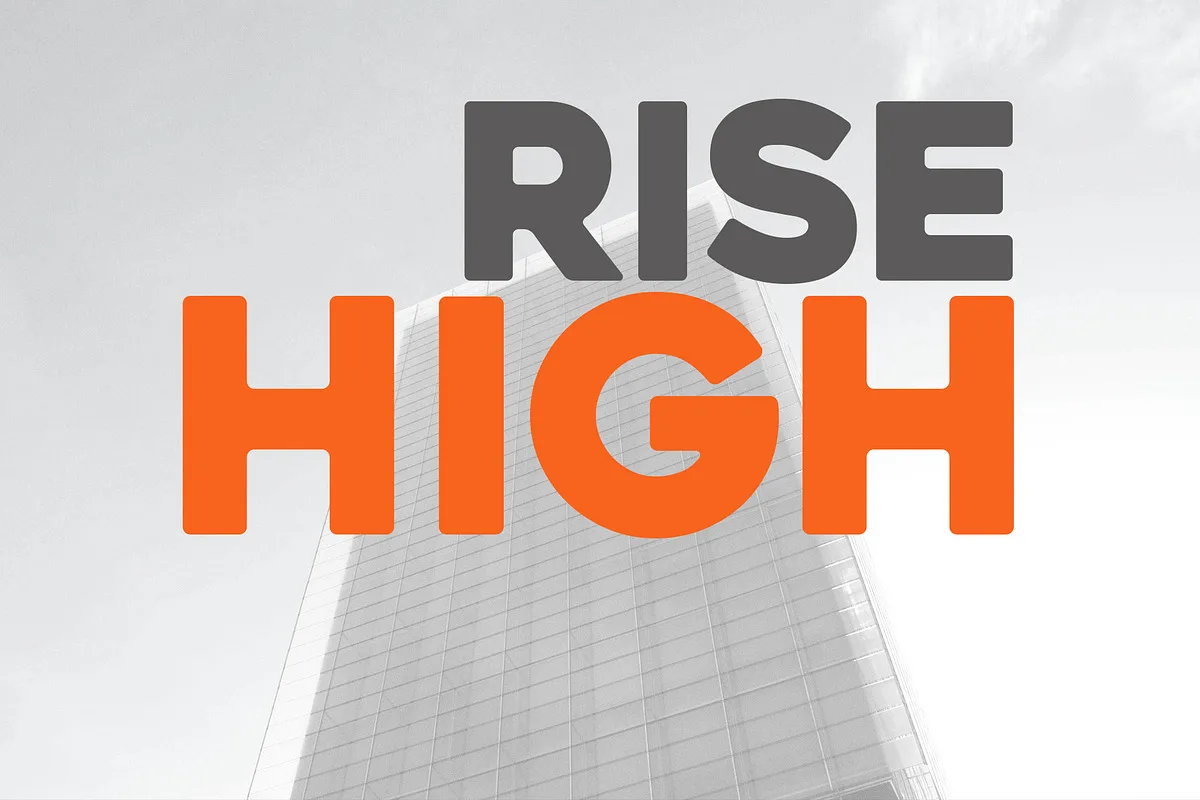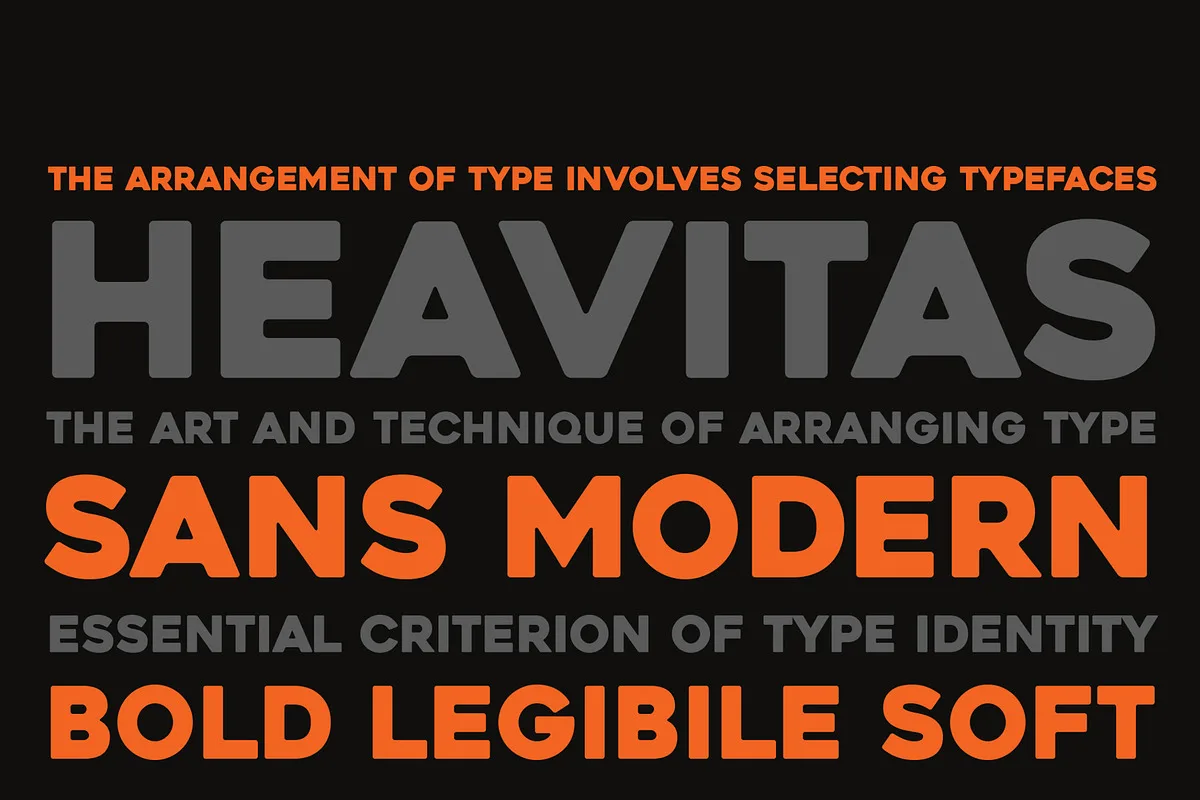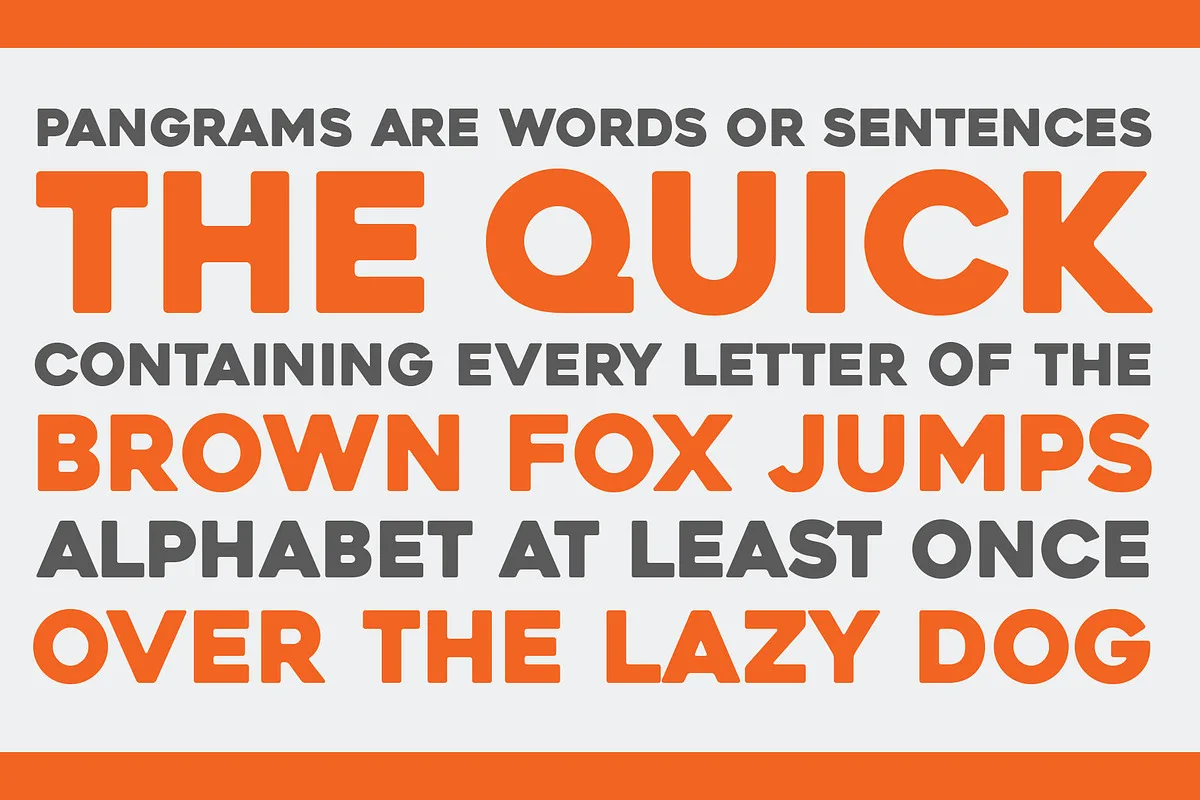
Heavitas is an all-caps geometric sans serif typeface. Its bold and contemporary character with soft edges is particularly suitable for headlines, headings, branding, posters, packaging, titles and logos. It comes in multiple weights and has variations in most of the upper case and lower case characters.
Heavitas Font – Sans Serif